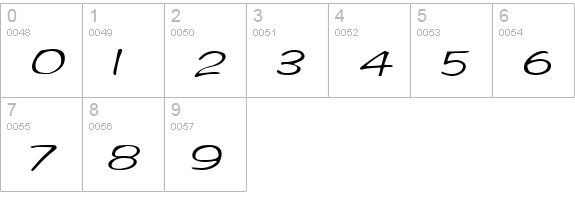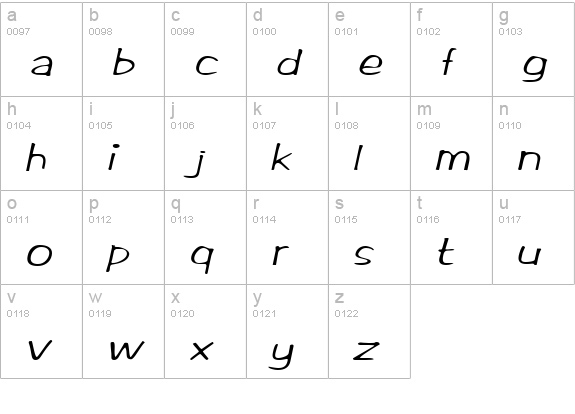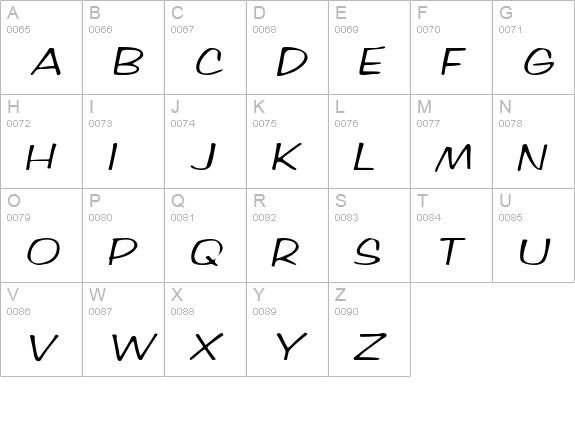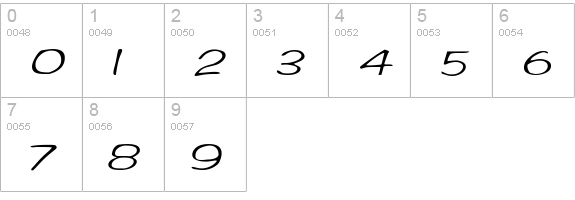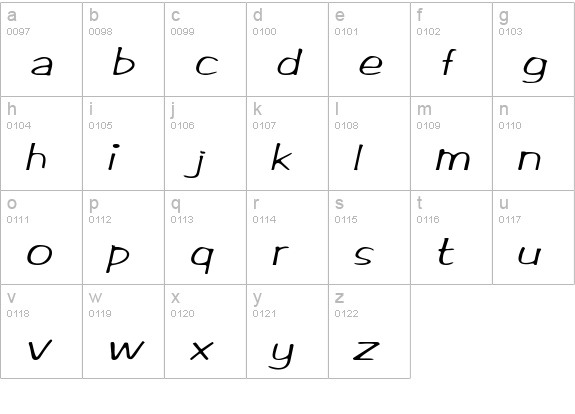
Marlo Italic is a distinctive, italic variant in the Marlo typeface family \xE2\x80\x94 well suited to design and typography projects.
Introducing Marlo Italic, a stunningly elegant font that effortlessly captures the essence of sophistication and grace. With its slanted and curvaceous letterforms, Marlo Italic exudes a sense of timeless beauty and refined style. This exquisite font is meticulously crafted to elevate any design project, whether it be branding, logo design, editorial layouts, or elegant wedding invitations. Its fluid and delicate strokes create a harmonious balance between legibility and artistic expression, making it ideal for both print and digital applications. Marlo Italic possesses a unique versatility that allows it to seamlessly adapt to various design contexts. From contemporary and minimalistic designs to vintage-inspired aesthetics, this font effortlessly adds a touch of elegance and sophistication to any composition. One of the most remarkable aspects of Marlo Italic is that it is freely available to download at FontsMarket.com. This means that you can enhance your creative projects without any cost, making it an invaluable resource for designers, artists, and enthusiasts alike. By offering this font for free, Marlo Italic ensures that its timeless beauty and refined style are accessible to all, empowering individuals to transform their creative visions into reality. So, whether you're looking to add a touch of elegance to your next design project or simply appreciate the artistry of beautifully crafted fonts, Marlo Italic is the perfect choice. Download it for free at FontsMarket.com and embark on a creative journey that is bound to captivate and inspire.